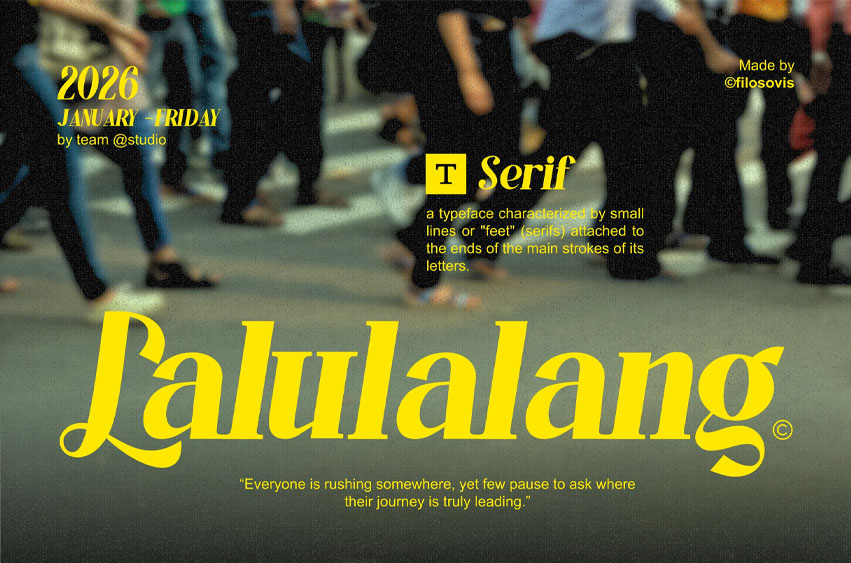
Lalulalang Font is an aesthetic serif font designed to capture emotion, nostalgia, and timeless storytelling. Inspired by classic typography and cinematic visuals.
Perfect for film titles, editorial layouts, book covers, aesthetic branding, classic posters, and storytelling visuals. Lalulalang helps create designs with depth, warmth, and artistic character.